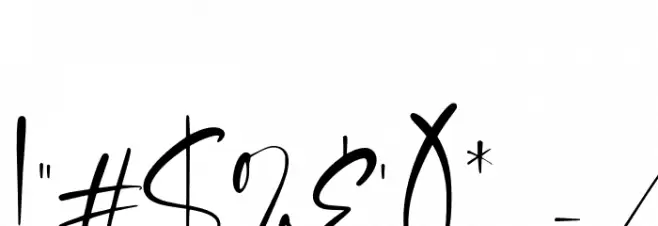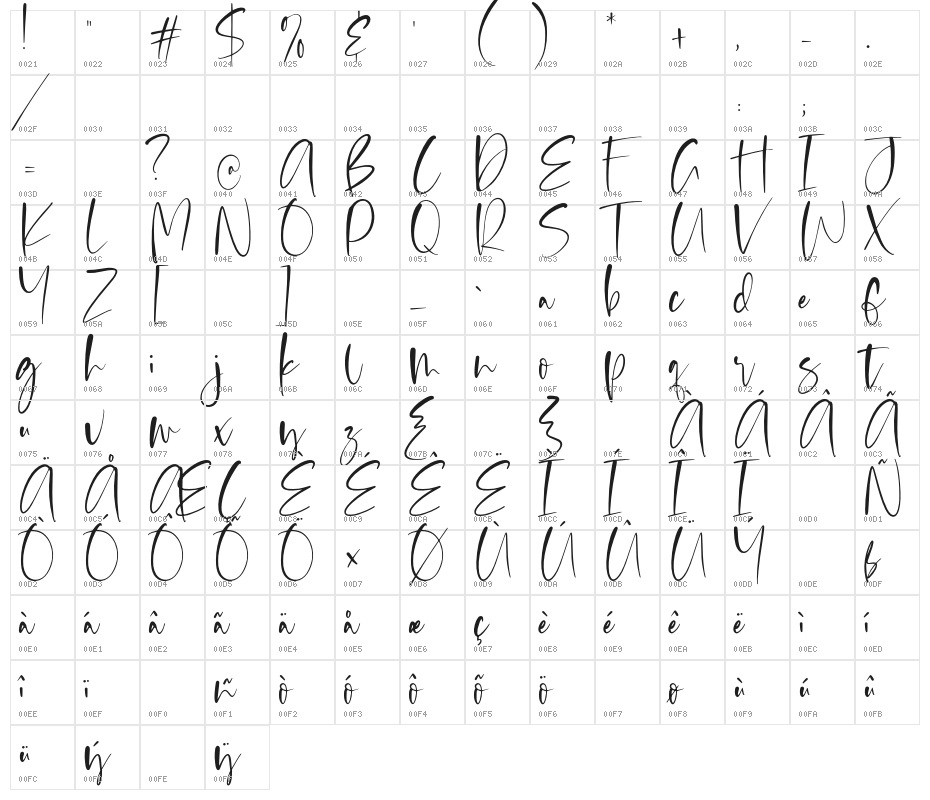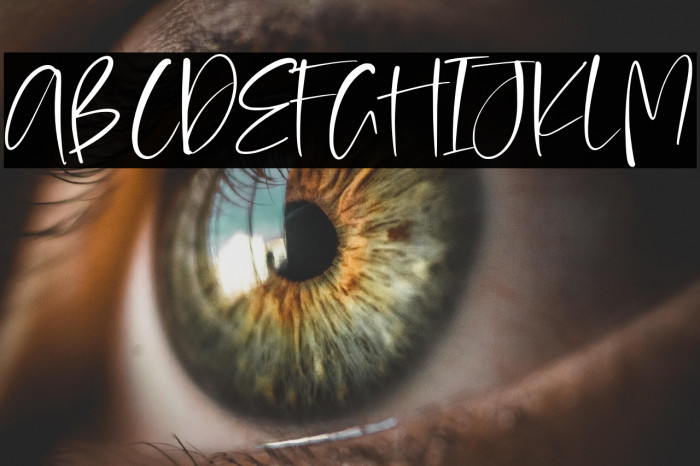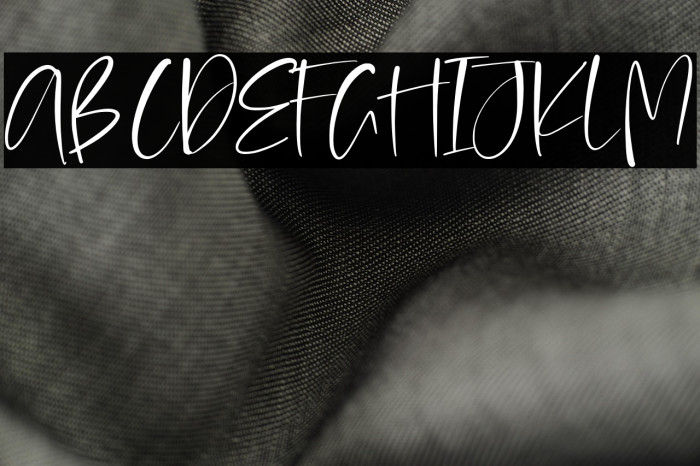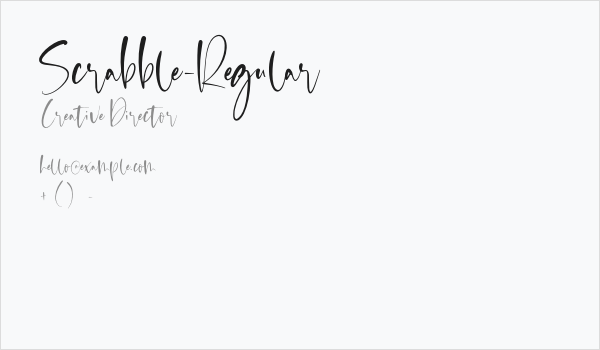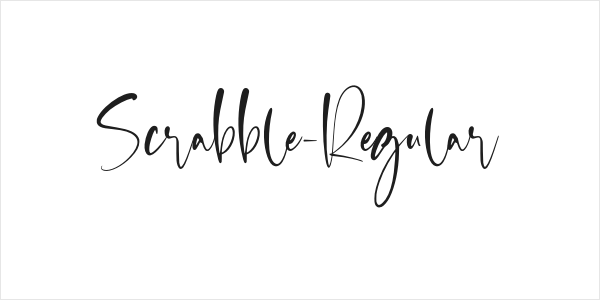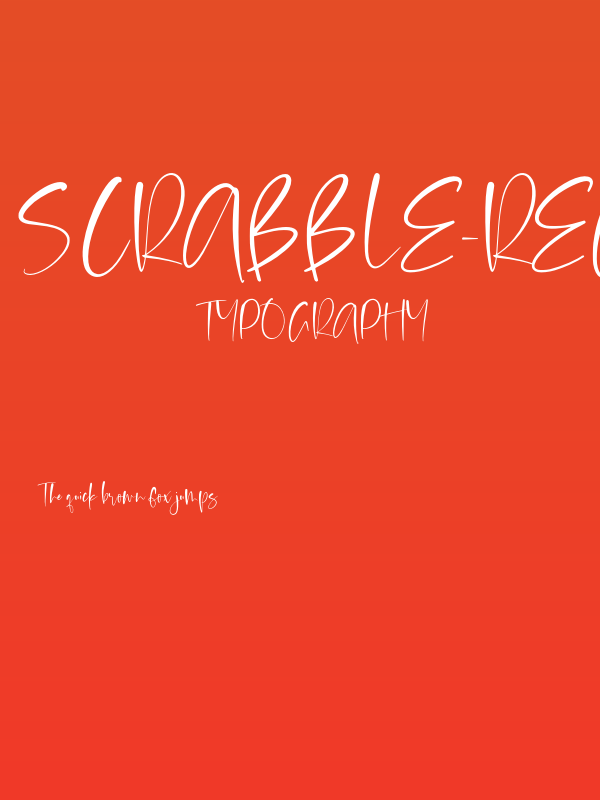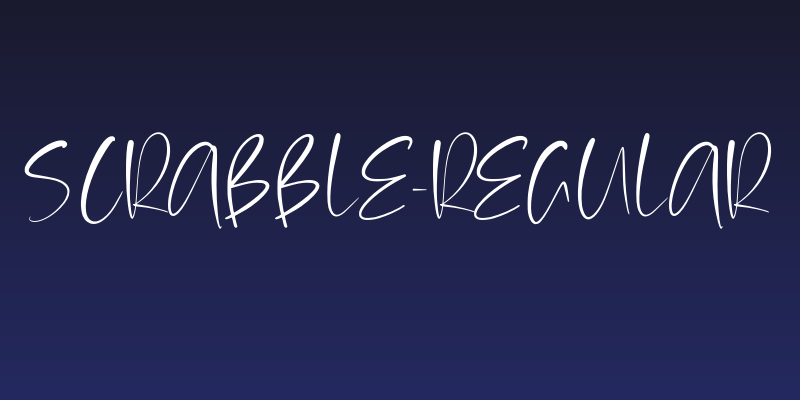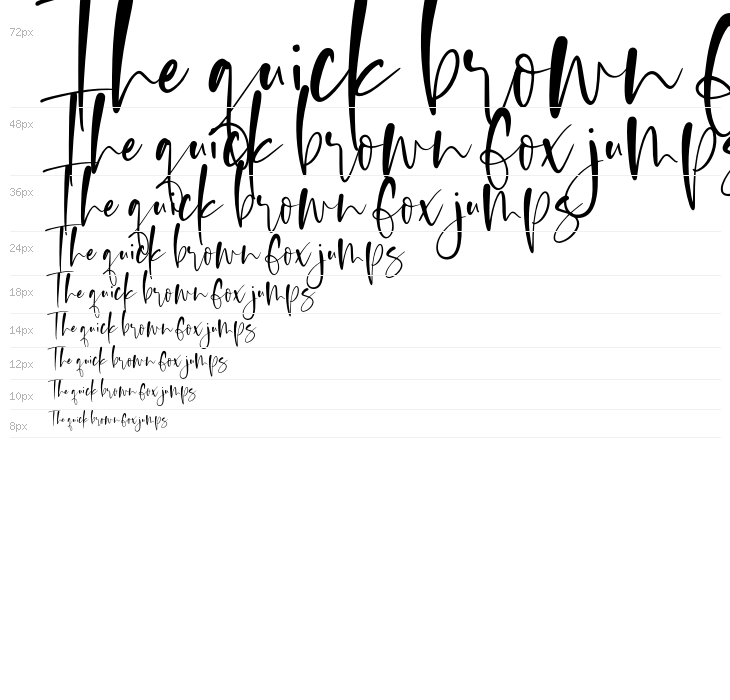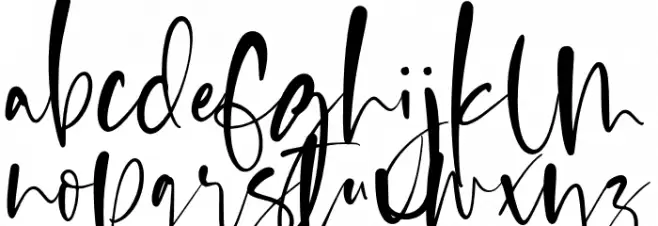
Scrabble-Regular Font
Scrabble-Regular Description
This font features a lively and expressive handwritten style, characterized by its fluid and dynamic strokes. The uppercase and lowercase letters exhibit a playful yet elegant appearance, with varying line thickness that adds a sense of movement and energy. The characters are slightly slanted, enhancing the casual and informal feel. The special characters maintain the same whimsical quality, making the font versatile for creative projects. Its unique style is perfect for adding a personal touch to any design.